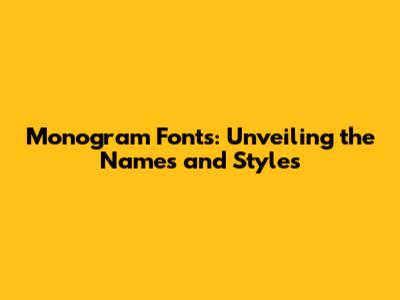
- Times New Roman: While not specifically designed as a monogram font, its clean, readable serifs make it a versatile choice. You can add it with a few decorations to make it perfect. It is often the base to start a creation.
- Didot: Known for its high contrast and delicate serifs, Didot is an excellent choice for a refined and elegant monogram. It is easy to find because it is very popular among many designers. It is the perfect choice for a sophisticated and luxurious look.
- Bodoni: Similar to Didot, Bodoni offers a high contrast and is ideal for a bold, statement-making monogram. Very similar to Didot, but with some variations, it can be the perfect option for your monogram.
- Garamond: A more traditional serif with a warmer feel, Garamond is perfect for creating a vintage or classic monogram. This font is very adaptable, and it is a good starting point.
- Brush Script MT: This is a classic brush script font, great for a casual, handwritten feel. If you want something informal, the font is an excellent choice.
- Lobster: A bold and stylish script font, Lobster is ideal for a modern monogram with a touch of flair. The best part is that it is free to use. It is a good starting point for a professional looking monogram.
- Edwardian Script ITC: A more formal and elegant script, perfect for a sophisticated monogram. This font is a must if you want to be formal.
- Helvetica: A timeless sans-serif font, Helvetica offers a clean and versatile option. Its simplicity makes it easy to incorporate into any design.
- Futura: Known for its geometric shapes, Futura offers a modern and bold look. This is the choice if you are targeting the futuristic side.
- Gotham: A popular sans-serif font, Gotham is perfect for creating a strong and memorable monogram. The font is very adaptable, and it is a good starting point.
- Art Deco Fonts: Inspired by the Art Deco era, these fonts are perfect for a vintage-inspired monogram. If you are looking for vintage style fonts, this is the one.
- Geometric Fonts: Fonts with geometric shapes can create a modern and unique monogram. If you are looking for geometric style fonts, this is the one.
- Whimsical Fonts: Playful fonts can add a fun and creative touch to your monogram. If you are looking for a playful style font, this is the one.
Hey there, design enthusiasts! Ever wondered about the cool fonts you see used for monograms? You know, those stylish initials you spot on everything from wedding invitations to fancy handbags? Well, you're in the right place! We're diving deep into the world of monogram fonts, exploring their names, styles, and everything in between. Whether you're a seasoned designer or just starting to dabble in the creative arts, understanding these fonts can seriously level up your game. So, grab a coffee (or your drink of choice), and let's unravel the secrets behind these personalized typographic masterpieces. This guide will walk you through the most popular fonts used for monograms and provide a good basis to create your own.
What Exactly is a Monogram Font?
First things first, let's get the basics down. A monogram font isn't a specific font in the way that, say, Helvetica is. Instead, it's a category or style of fonts that are particularly well-suited for creating monograms. A monogram, as you probably know, is a design that combines two or more letters – typically initials – to form a single emblem. These fonts are often characterized by their decorative elements, unique letter shapes, and the way they're designed to be combined to create a cohesive look. They can be elegant, classic, modern, or even quirky, but the common thread is their ability to look fantastic when arranged as a personalized mark. Some of the best monogram fonts can be found in various websites. From a free monogram font to a paid one, there are multiple choices.
Now, these fonts are your go-to when you want to add a touch of personalization and sophistication. Think of them as the building blocks for creating your own personalized brand, whether it's for yourself, a business, or a special event. Monogram fonts come in a wide variety of styles, each offering a unique aesthetic. From traditional serif fonts with elegant flourishes to sleek, modern sans-serif options, there's a monogram font out there to match any style. So next time you see a beautifully crafted monogram, remember that it's the font, along with the design choices, that really brings the whole thing together.
Popular Monogram Font Styles and Their Names
Alright, let's get into the good stuff: the fonts themselves! There are tons of fonts out there, so we'll highlight some of the most popular and versatile styles used for monograms. Understanding these styles will help you choose the perfect font for your project and give you a better appreciation for the art of monogram design. Finding the right font can be a game-changer! Here are the most famous monogram font styles and names.